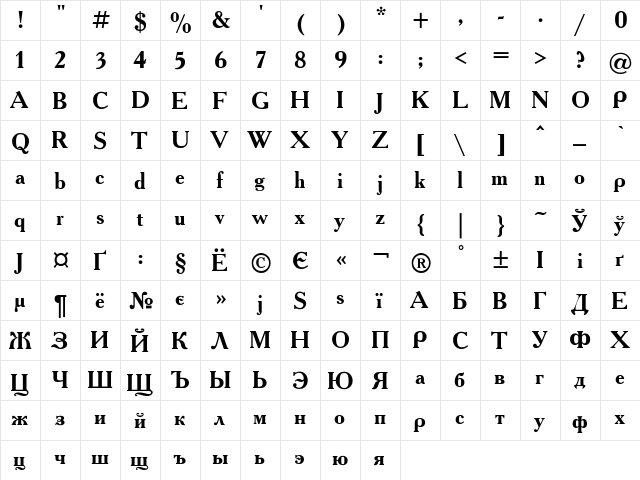
ft43b Bold
Design Context for ft43b Typeface
ft43b takes a measured approach to typography — its balanced proportions and neutral character make it a reliable workhorse for both digital and print work. Its bold stroke weight gives it real presence on the page.